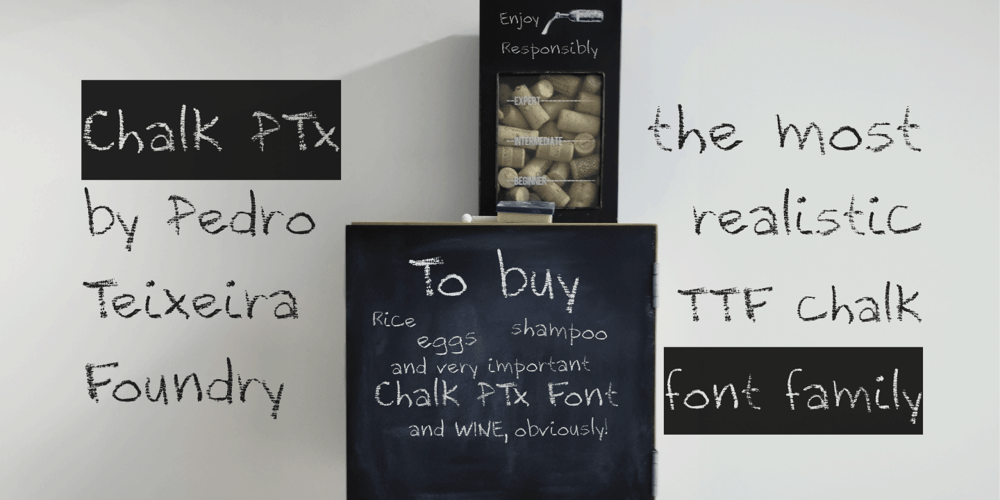
Chalk PTx
Chalk PTx font
Chalk PTx Font Family was designed by Pedro Teixeira and published by Pedro Teixeira. Chalk PTx contains 2 styles and family package options. Introducing realistic Chalk PTx – a font family that seamlessly combines vintage charm with modern appeal. Immerse your designs in the timeless elegance of hand-drawn chalk, meticulously crafted to evoke a sense of nostalgia and authenticity.This realistic chalk font captures the essence of traditional chalkboard writing, bringing a touch of classic craftsmanship to your digital creations.Each character is intricately designed to mirror the natural irregularities and imperfections found in hand-drawn chalk, providing a genuine and charming autenticy.Ideal for a wide range of projects, from rustic signage to contemporary social media graphics, this chalk font adds a unique and versatile element to your visual storytelling. Enhance the visual appeal of your website, blog, or marketing materials with a font that effortlessly balances professionalism and creativity.